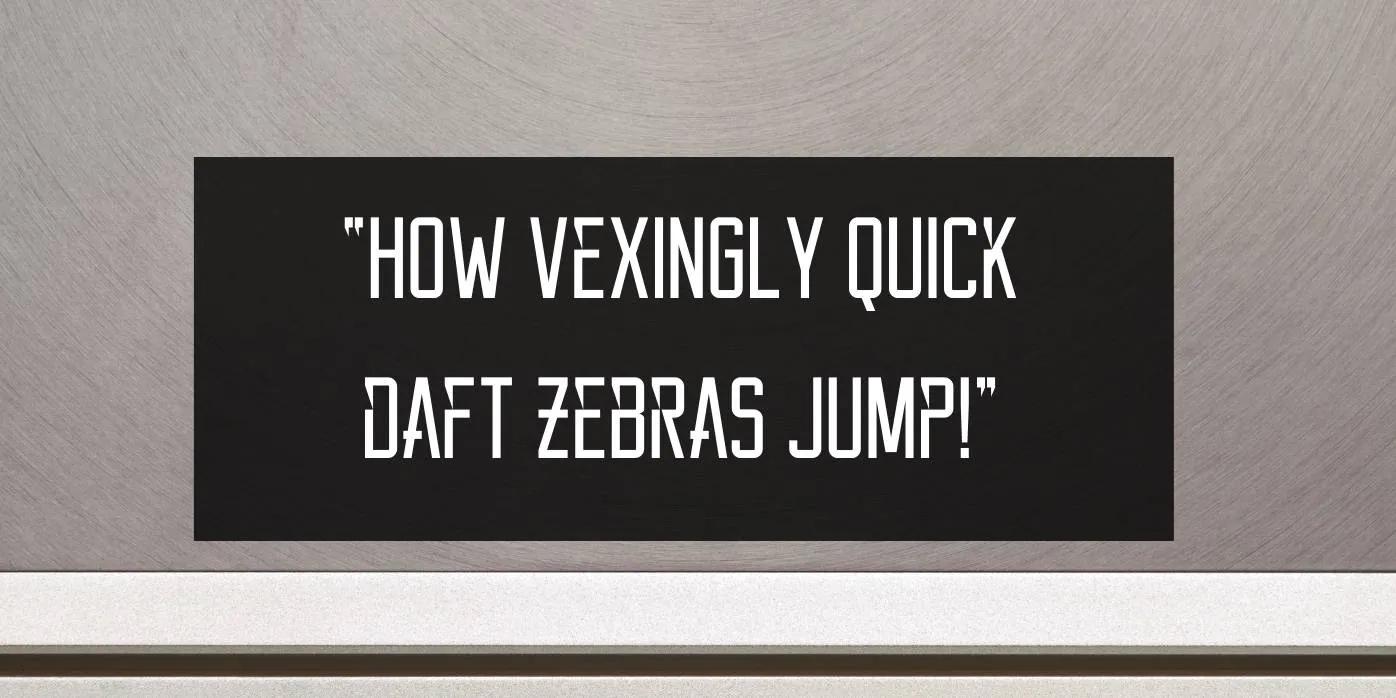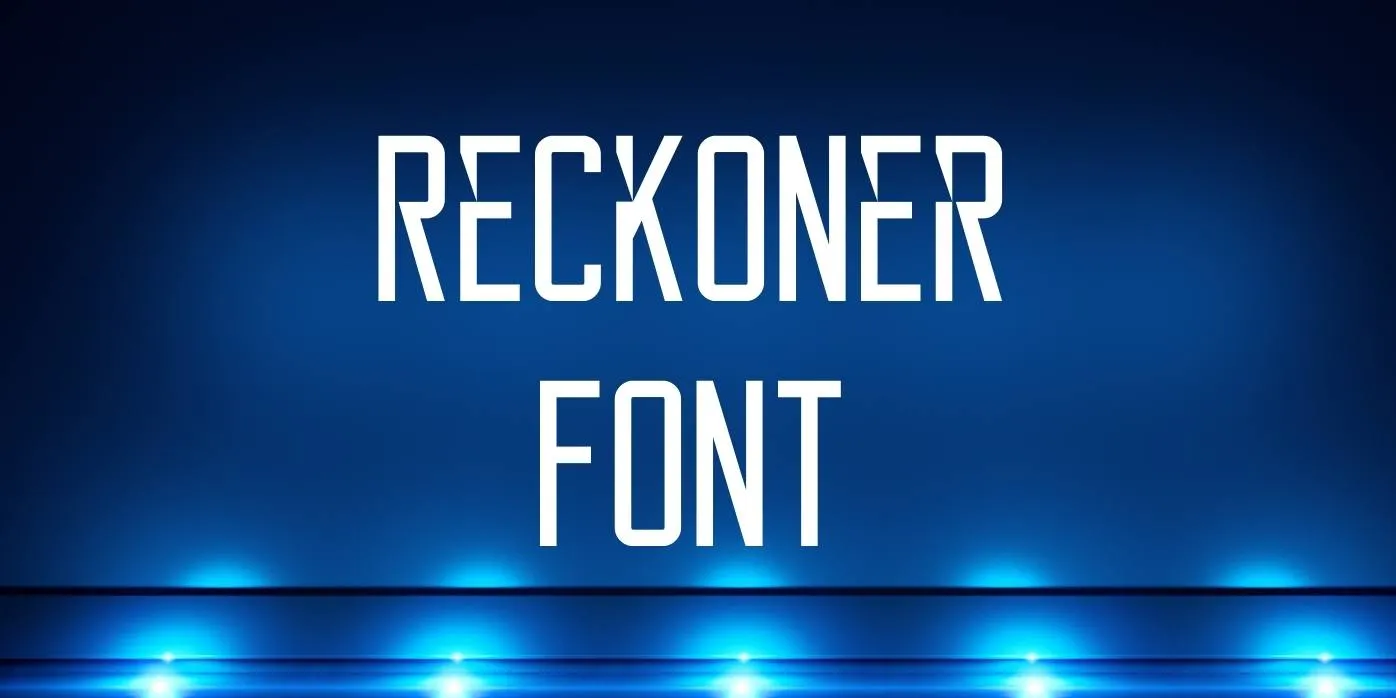
Reckoner Font
Reckoner Font is a sans serif typeface designed by Alex Dale. It was inspired by the popular Futura Font. The font has a unique design that makes it perfect for headlines and other display purposes. This typeface is best for different programs like Adobe, Canva, and others.
This stunning Font is available in two weights, light and regular. The lightweight is perfect for smaller text sizes, while the regular weight is ideal for larger sizes. This cozy typeface is available in 99 famous characters such as numerals, punctuation marks, and currency symbols. Didact Gothic Font is alternative to this stunning typeface.
It is an excellent choice for branding, advertising, and web design projects. The font is perfect for headlines, titles, and other display purposes. If you are looking for a unique sans serif typeface, then Reckoner Font is the perfect choice for your different interesting designs.